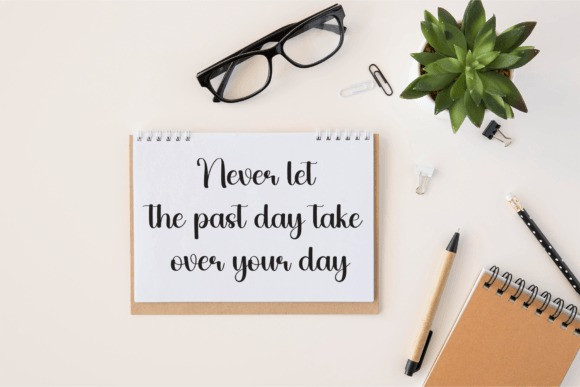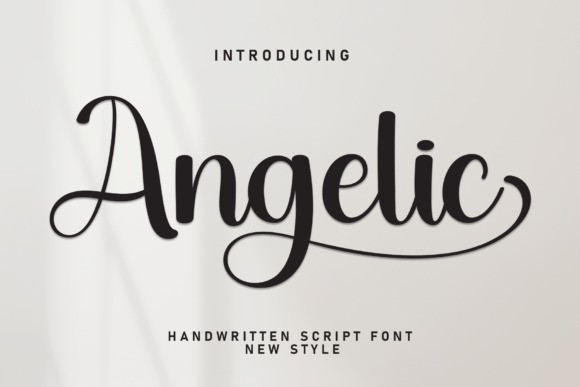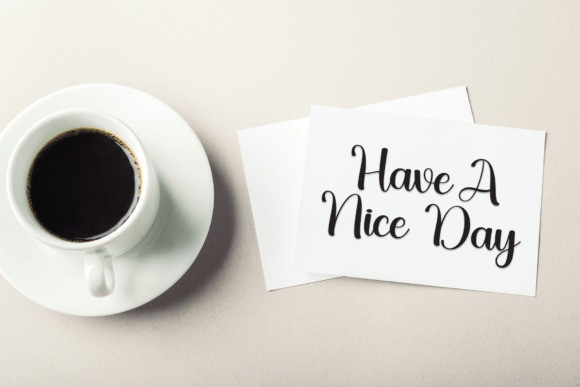
Angelic Handwritten Font
Angelic Handwritten Font is a sweet and friendly handwritten font. Its natural and unique style makes it incredibly fitting to a large pool of designs. The only limit is your imagination!